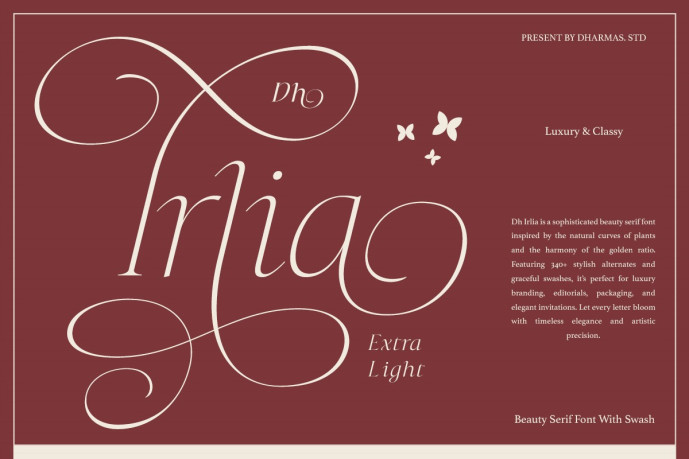
Irlia Modern Font
Designer: dharmasstudio
Irlia Modern Font is an elegant serif font that blends refined calligraphy-inspired details with modern sophistication. With its airy strokes, graceful curves, and expressive swashes, this weight delivers a soft yet luxurious impression. Irlia Extra Light adds timeless charm to any design.
This version includes only the Extra Light style, offering a delicate and stylish option while maintaining the signature sophistication of the Irlia family.
• 1 Weight: Extra Light
• 105+ Swash Alternates
• Letters, numbers, symbols, punctuation, special alternates